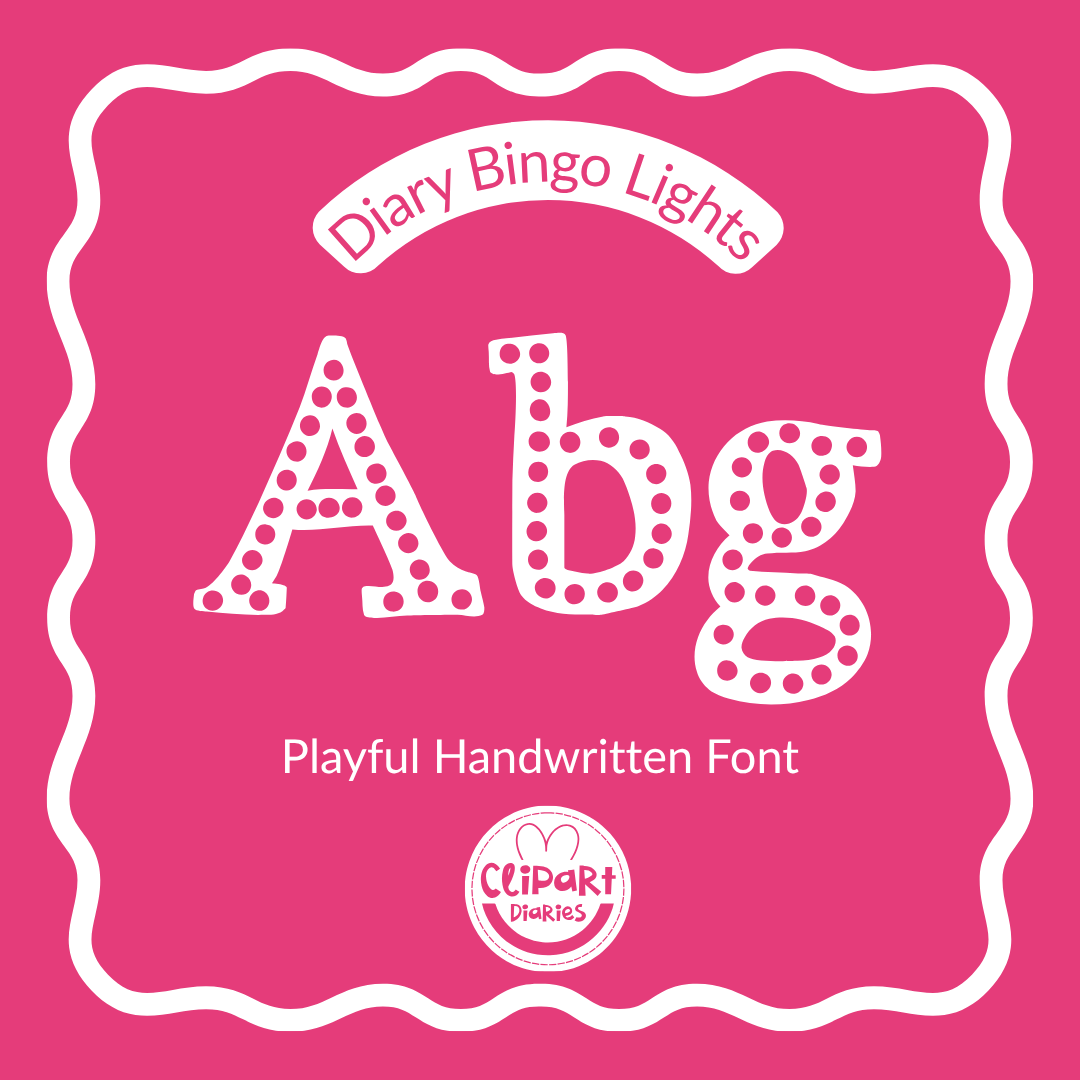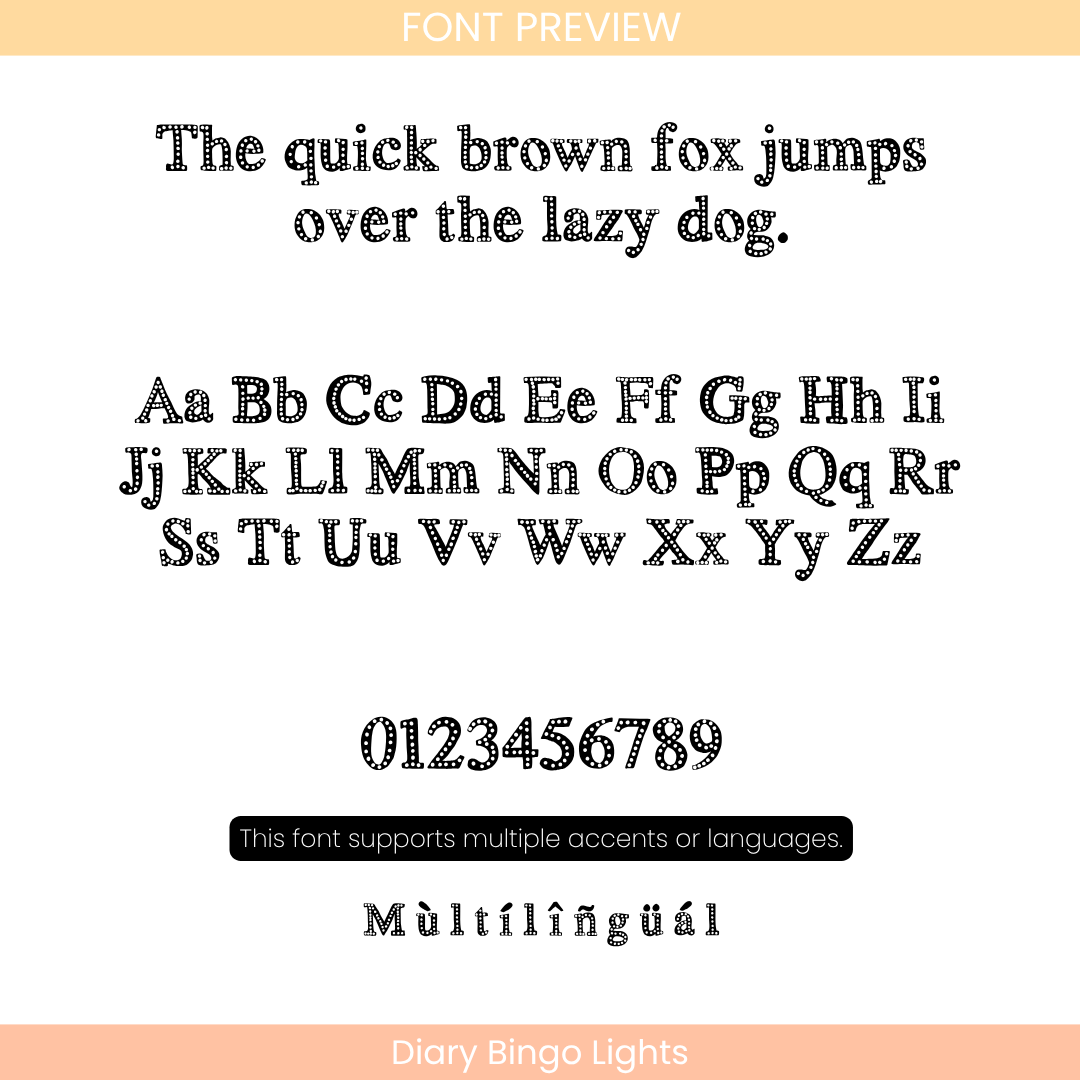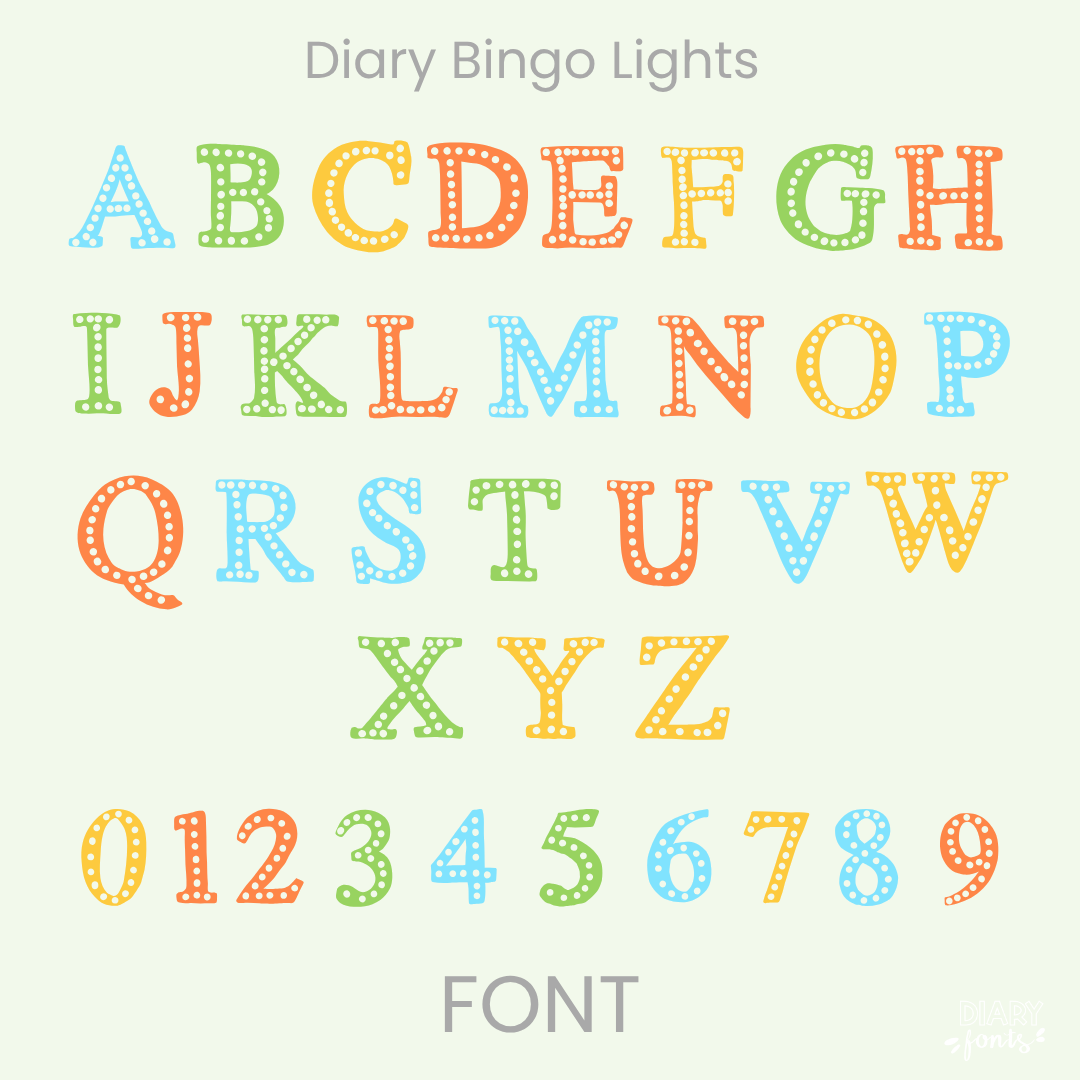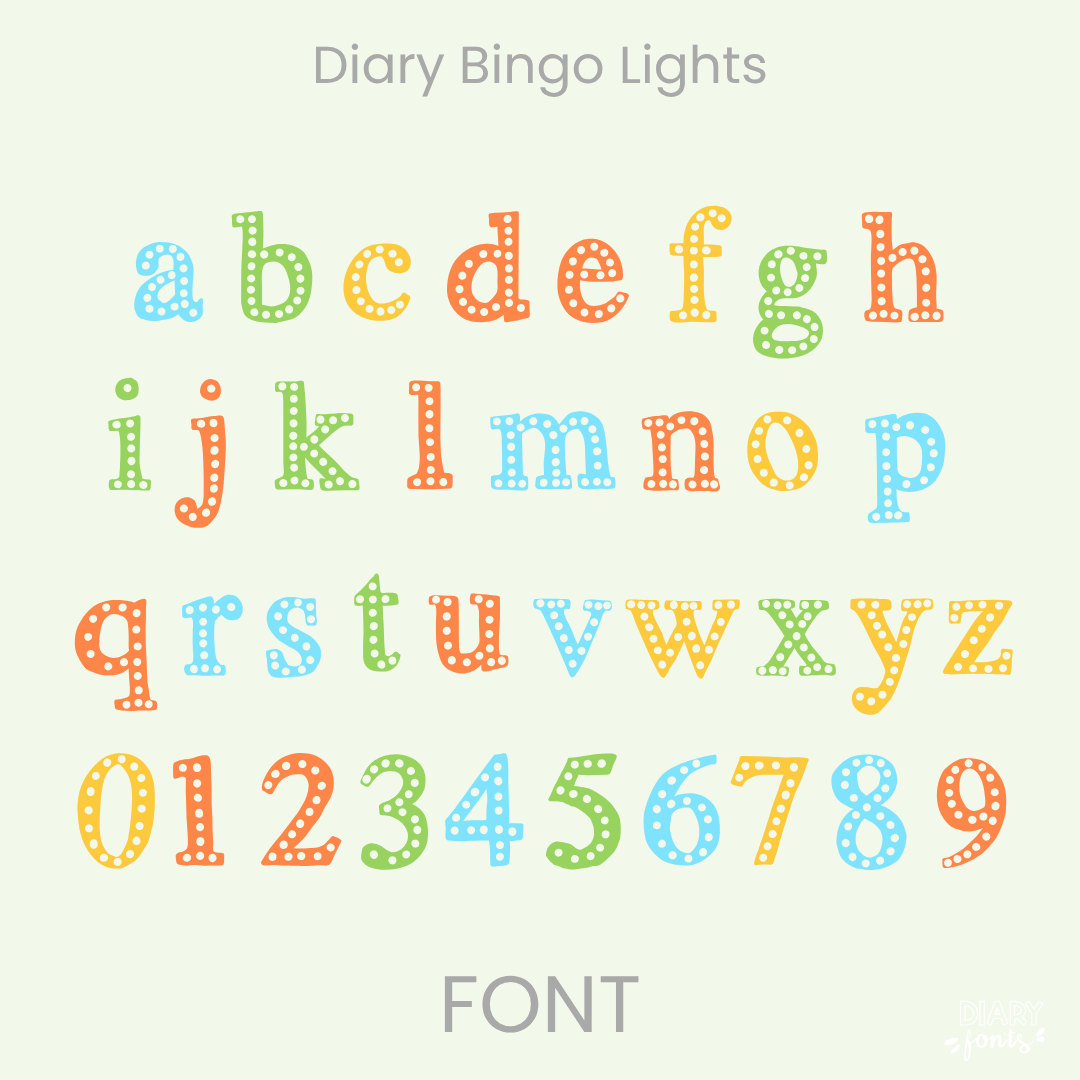
Brighten up your creative projects with Diary Bingo Lights, a playful handwritten font that combines a whimsical, lightweight aesthetic with professional clarity. This versatile typeface features a complete set of uppercase and lowercase letters, numbers 0–9, and full multi-language support for various accents, making it perfect for global educational content. It is specifically designed for seamless compatibility with Canva, MS Office, and Adobe Apps, as well as popular iPad tools like GoodNotes and Procreate. Whether you are designing festive classroom decor, engaging worksheets, or digital planners, Diary Bingo Lights offers a polished, hand-drawn look that is ideal for both personal and commercial use.
The Diary Bingo Lights is a playful, airy handwritten font designed to add a bright and cheerful touch to your digital resources and classroom materials.